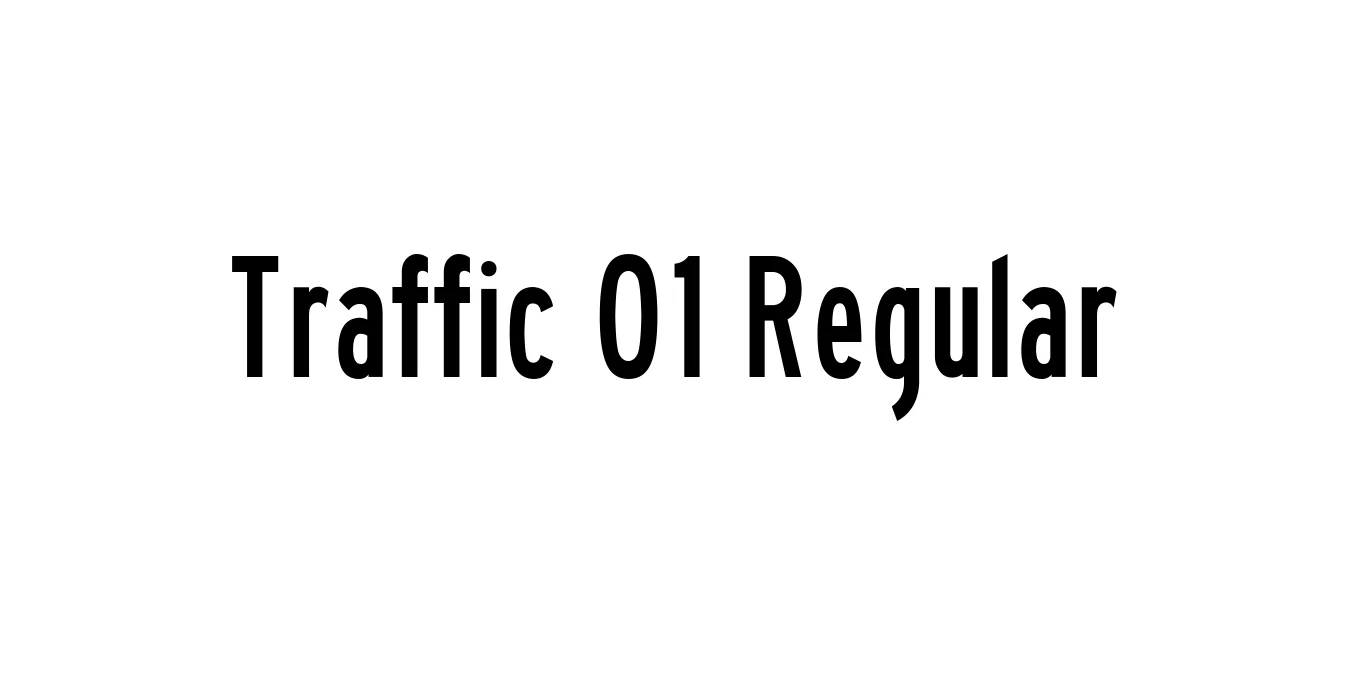
Traffic 01 Regular
Traffic 01 Regular is a distinct display typeface that draws heavy inspiration from industrial urban environments and mid-century transportation systems. The font reflects the utilitarian nature of stenciled street signs and public works lettering, focusing on maximum legibility and high impact. Its heavy weight and rigid construction make it stand out in crowded visual environments, echoing the historical context of roadside communication and municipal infrastructure.
As a versatile display font, Traffic 01 Regular has been widely adopted by designers looking to evoke a sense of rugged reliability or retro-urban aesthetic. The typeface is particularly effective when used in monochromatic schemes or layered with textures to simulate weathered paint or asphalt markings. Its clean edges and blocky structure ensure that it remains readable even at great distances, making it a staple for projects requiring a bold, authoritative, and industrial voice.
Traffic 01 Regular Best Uses
Ideal for high-visibility public signs and wayfinding systems in urban areas.
Perfect for creating a rugged, industrial identity for modern fashion labels.
Excellent for high-impact headlines that require a bold and authoritative presence.